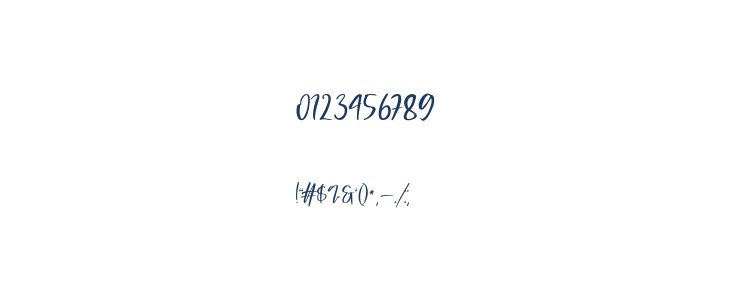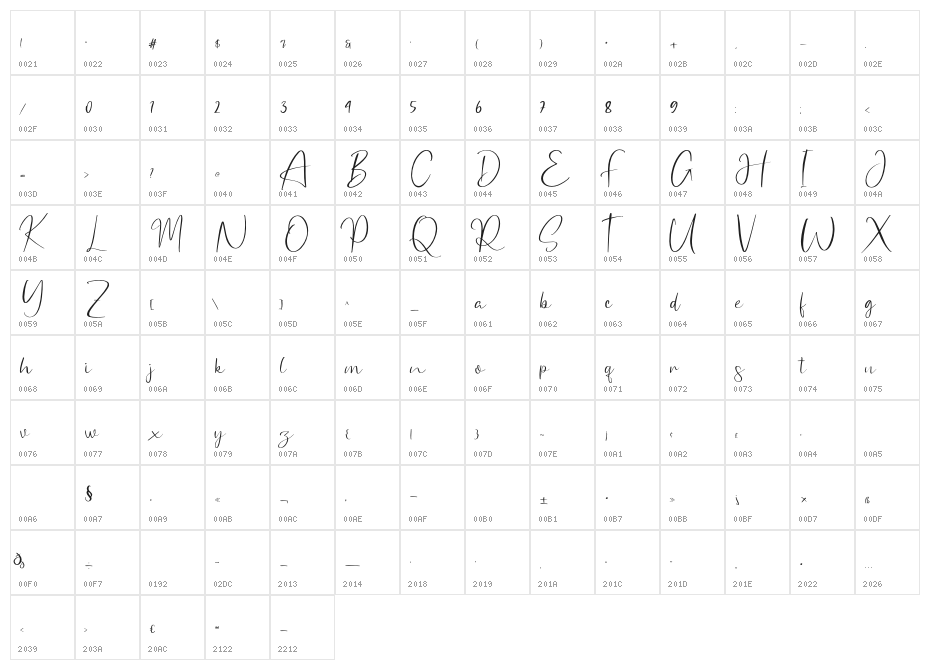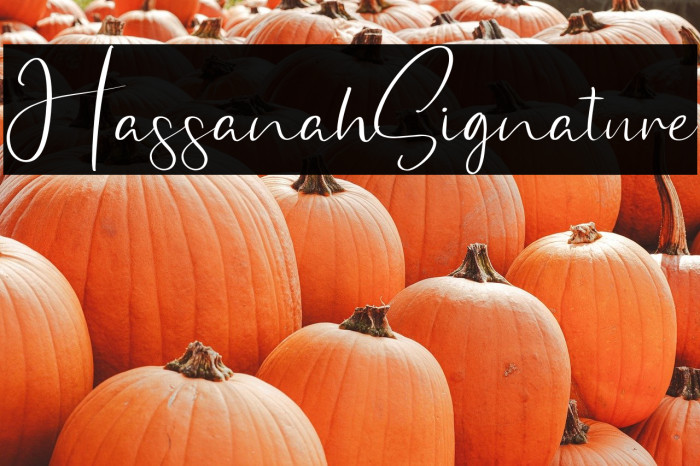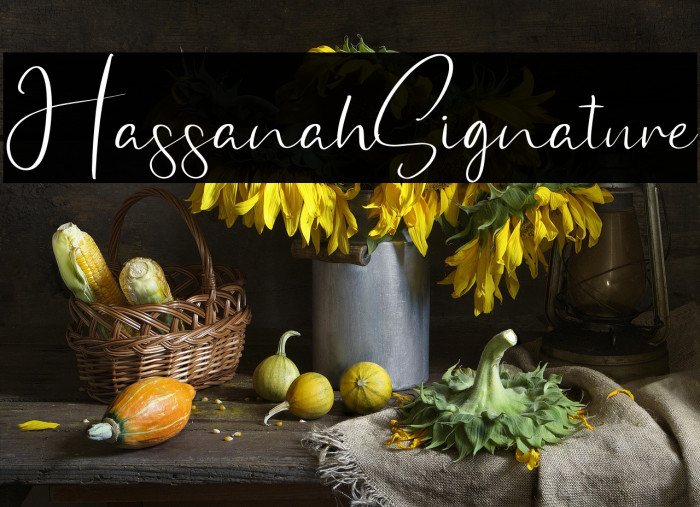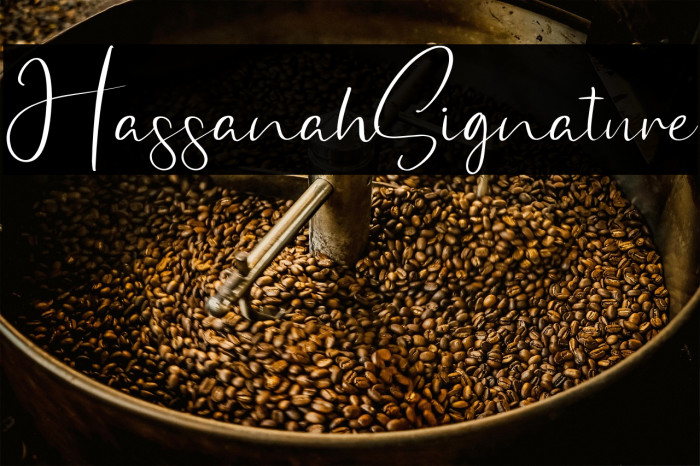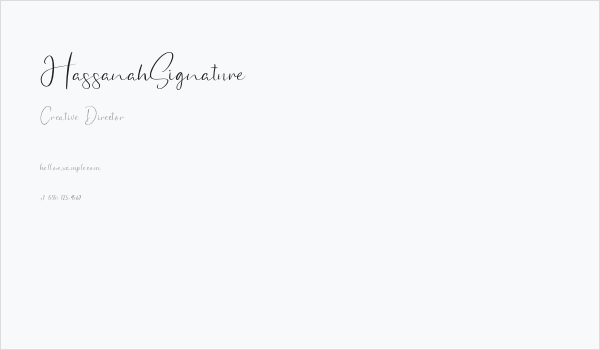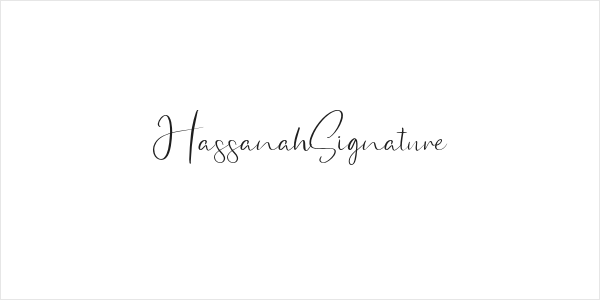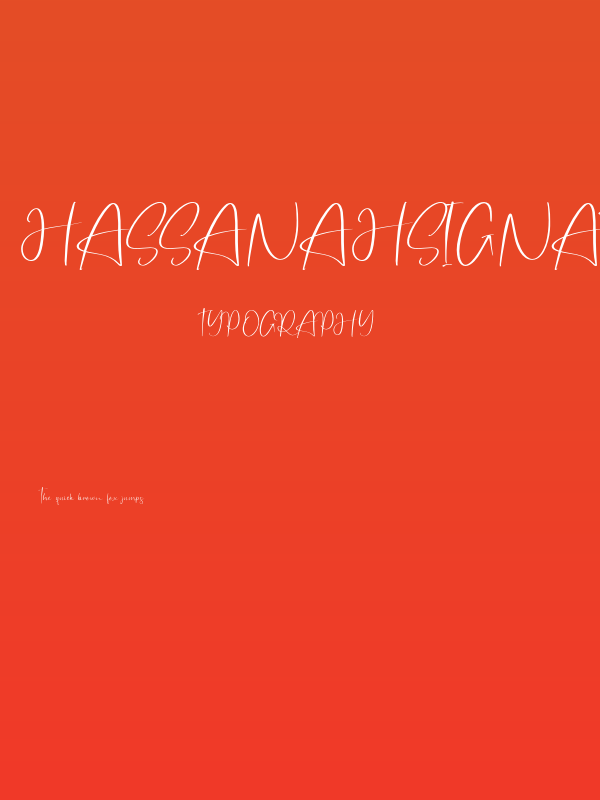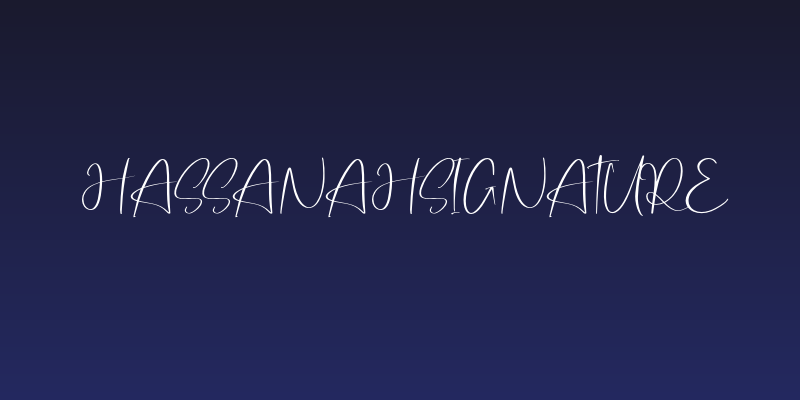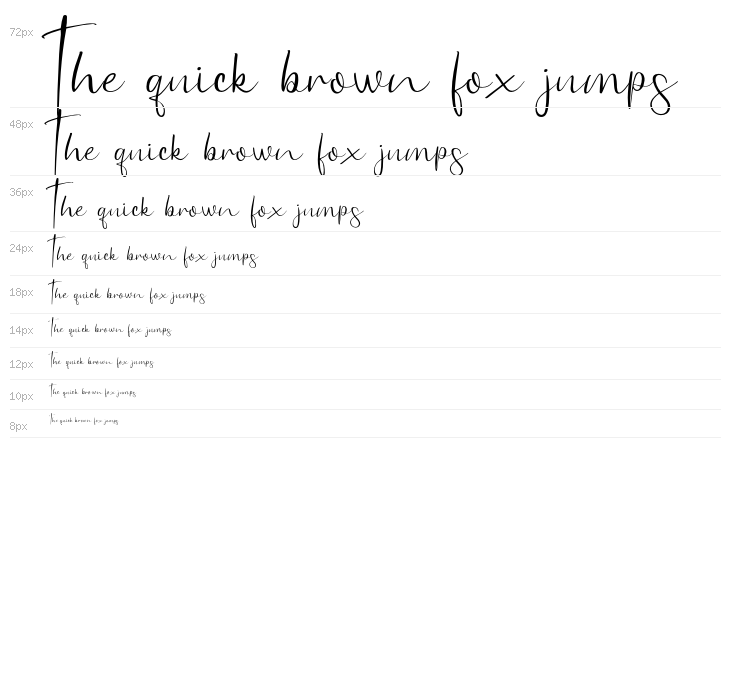
HassanahSignature Font
HassanahSignature Description
This font exudes a sophisticated and elegant handwritten style, characterized by its flowing and cursive letterforms. The uppercase letters are tall and slender, with graceful curves and loops that give them a sense of movement and fluidity. The lowercase letters maintain a consistent style, with smooth connections and a slightly more compact form. The numerals are clear and legible, maintaining the same elegant style as the letters. Special characters are thoughtfully designed to complement the overall aesthetic, making this font versatile for various design needs.
| Use Case | Logos, Invitations, Personal branding |
| Proposed Projects | Ideal for wedding invitations, personal branding, elegant logos, and greeting cards. |